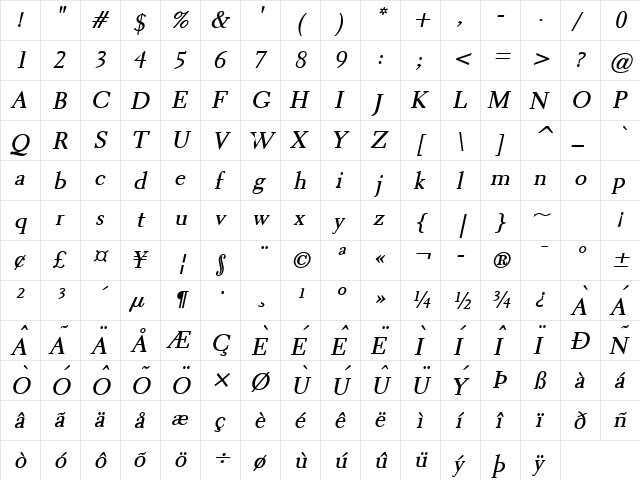
Transit 2 BoldItalic Font Preview
Design Context for Transit 2 Typeface
Transit 2 offers clean, dependable letterforms without strong stylistic allegiance, making it a practical choice for designers who need flexibility. The dynamic lean of this cut emphasises speed and emphasis in any layout. The heavy weight commands attention and anchors typographic hierarchies.
Pro Tip: Try Transit 2 for annotation and caption copy alongside an upright companion — the contrast in angle creates a dynamic but ordered typographic system.